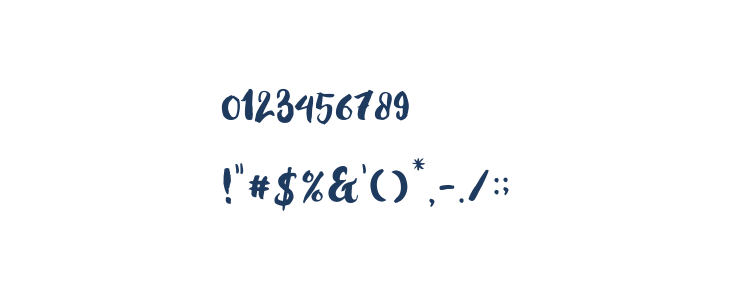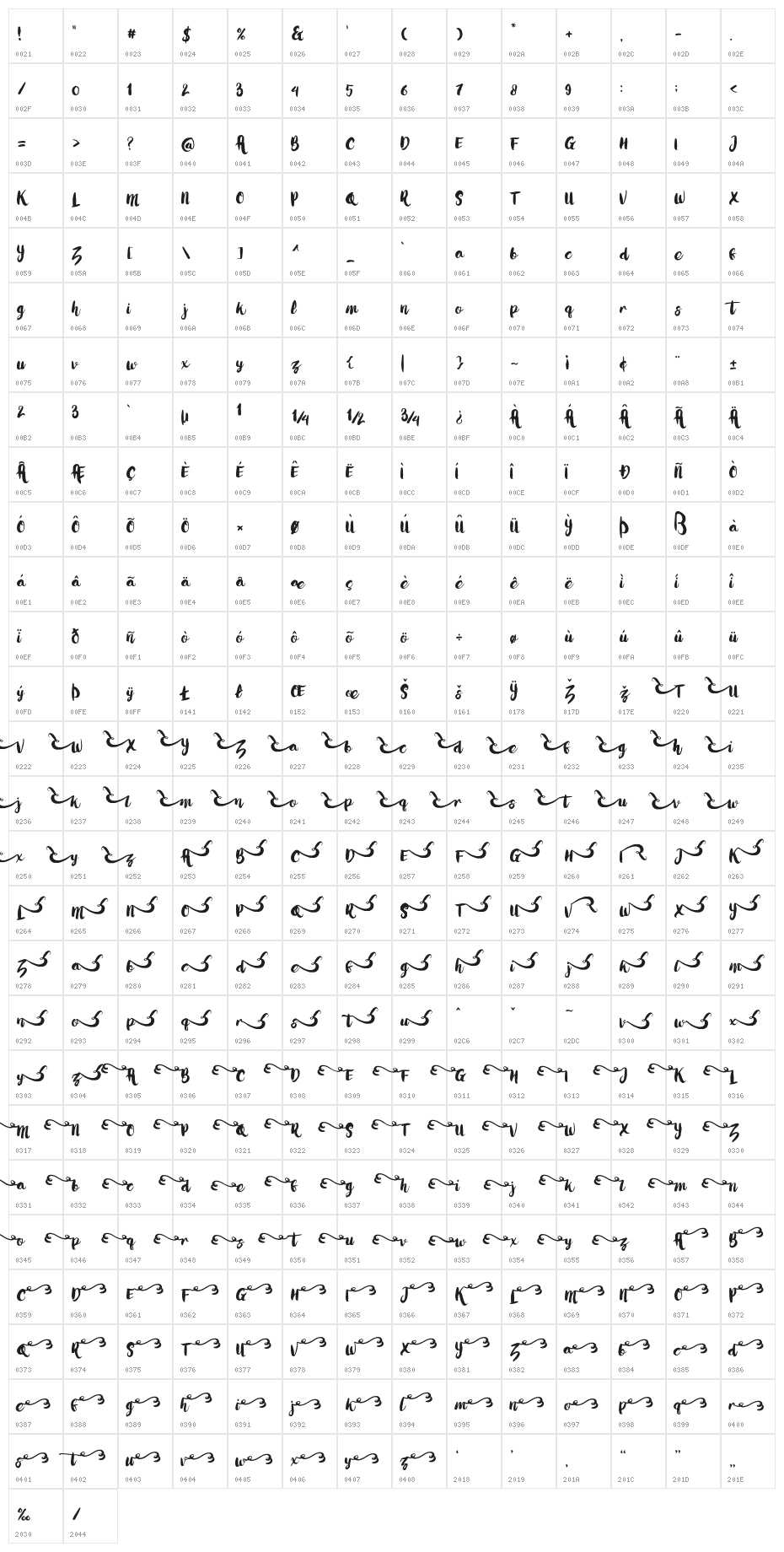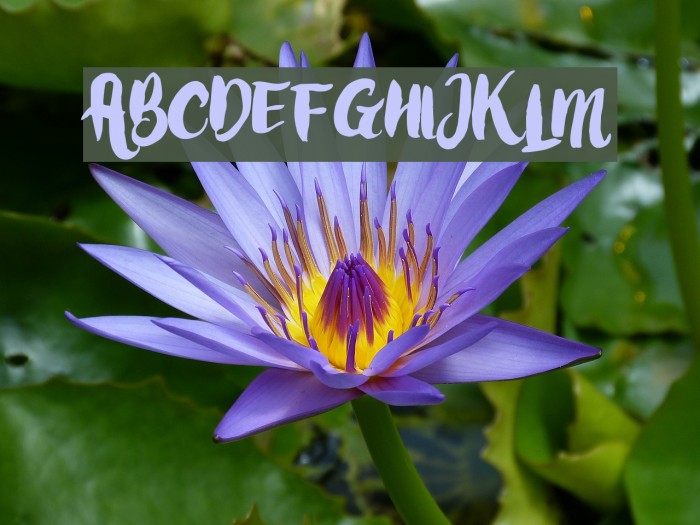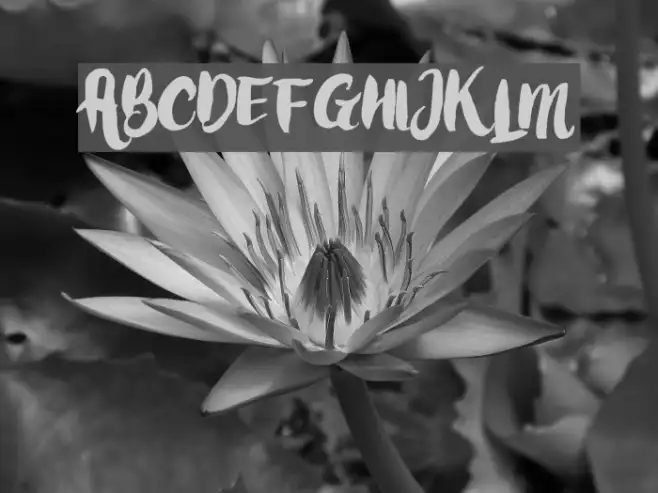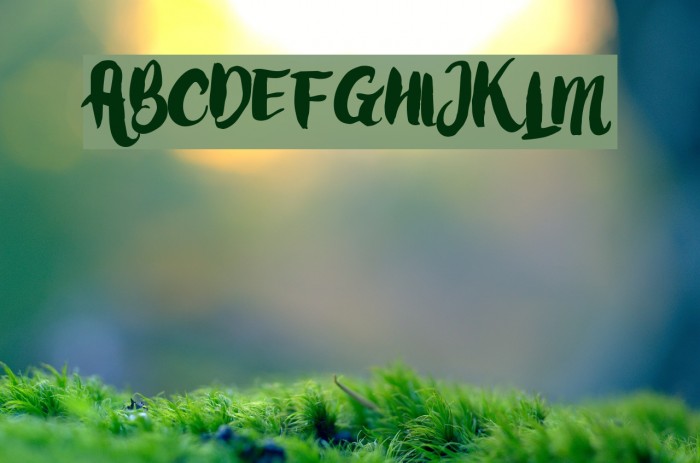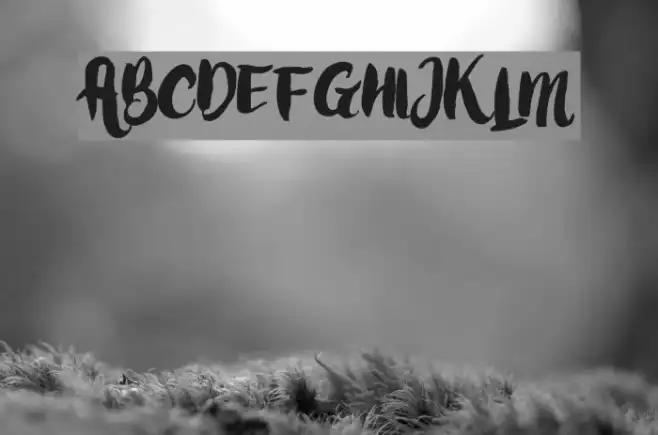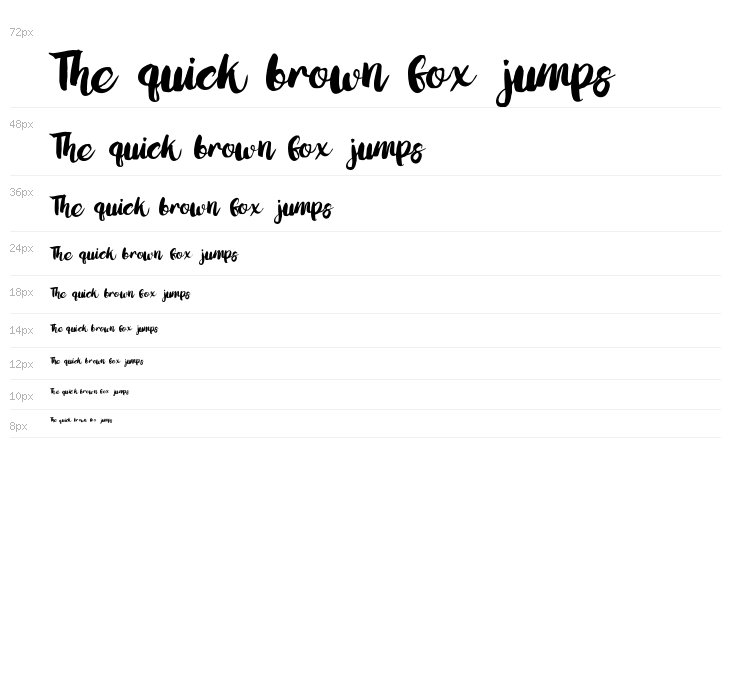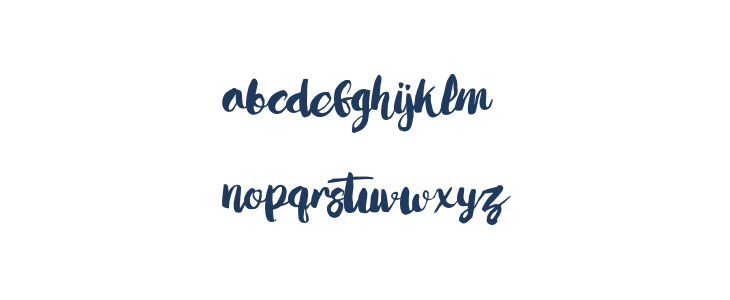
LoveMoment Font
LoveMoment Description
This font features a bold and expressive script style, characterized by its flowing, cursive letterforms that convey a sense of elegance and creativity. The strokes are thick and dynamic, with a high contrast between thick and thin lines, giving it a lively and energetic appearance. The uppercase letters are particularly striking, with unique flourishes and swashes that add a decorative touch. The lowercase letters maintain a consistent style, with smooth connections between characters, enhancing the script's fluidity. The numerals and special characters are designed to complement the overall aesthetic, making them suitable for a variety of creative applications.
| Use Case | Logos, Invitations, Artistic Designs |
| Proposed Projects | Ideal for wedding invitations, branding projects, greeting cards, and artistic designs. |